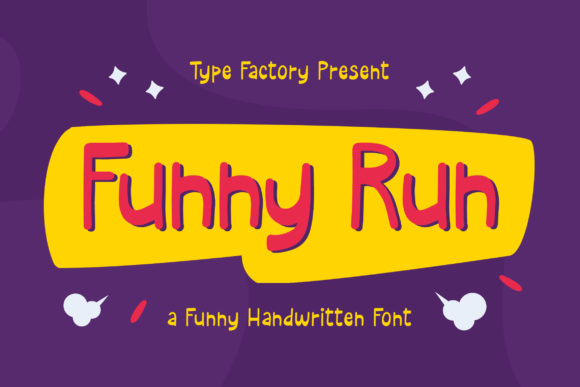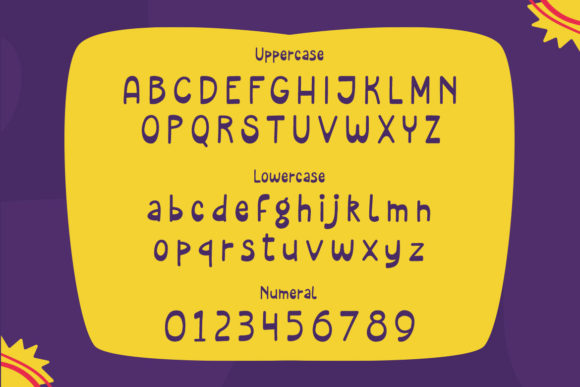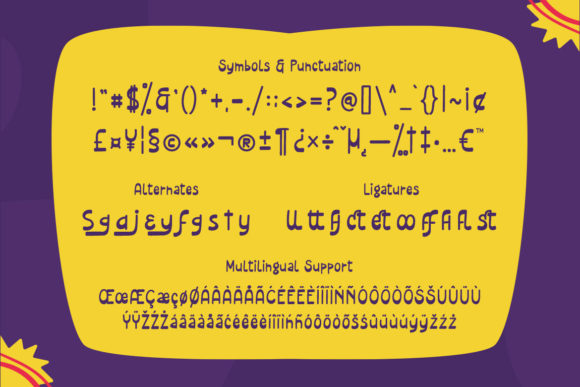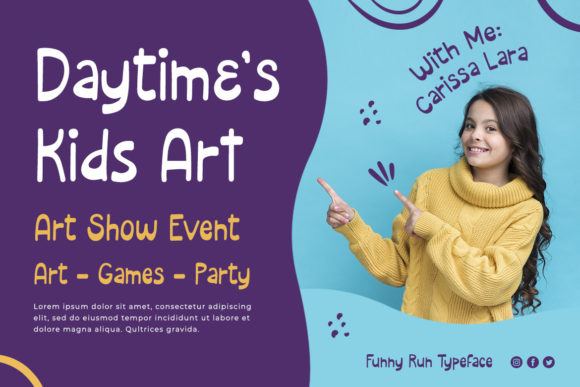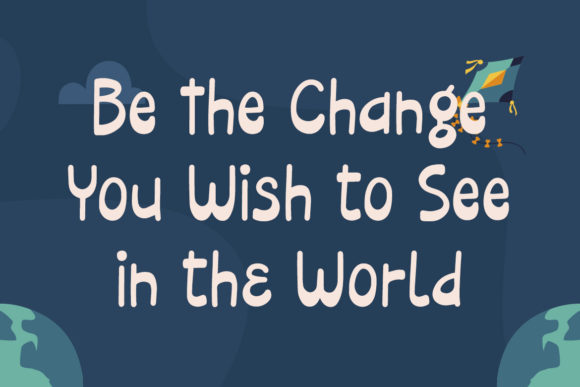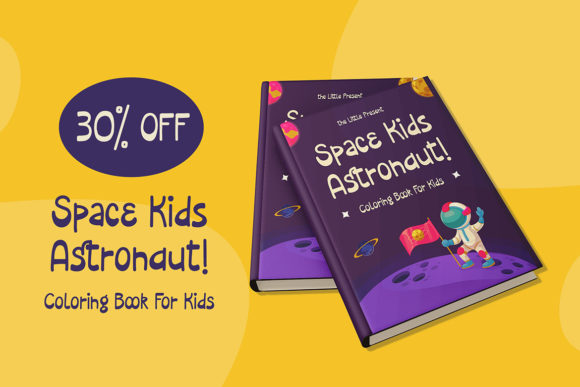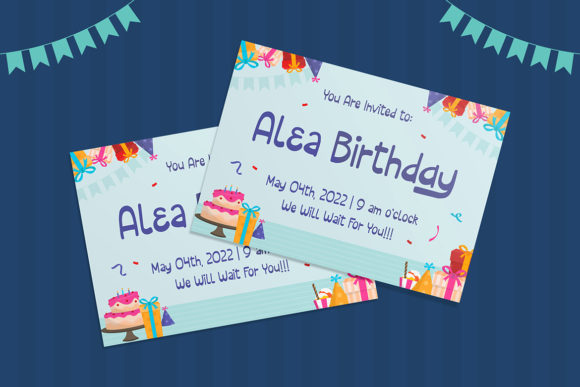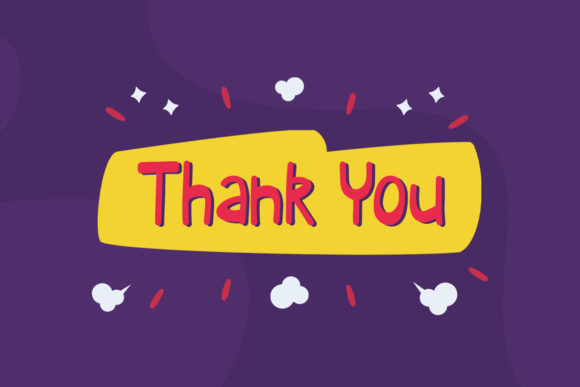
Funny Run Font
About Funny Run Font
Funny Run is a delightful and contemporary handwritten font that has been meticulously crafted to capture your heart. Its playful and unique style is bound to make it a cherished choice for a wide range of uses. Whether you’re engaged in crafting, digital design, presentations, or even creating charming greeting cards, Funny Run is poised to become your ultimate favorite font, regardless of the occasion!
This font’s quirky and modern demeanor adds a touch of whimsy and originality to your projects. Its carefully designed characters exude a sense of fun and creativity that can inject a burst of energy into your designs. No matter the context, Funny Run has the versatility to complement your work seamlessly, making it a reliable choice for various creative endeavors.
From playful crafts to polished digital designs, Funny Run effortlessly adapts to your needs and adds a distinctive flair to your creations. Its charm is infectious, and its ability to evoke a sense of joy makes it a font that you’ll keep coming back to with a smile. Embrace Funny Run as your go-to font, and watch it infuse your projects with its vibrant personality and boundless potential.